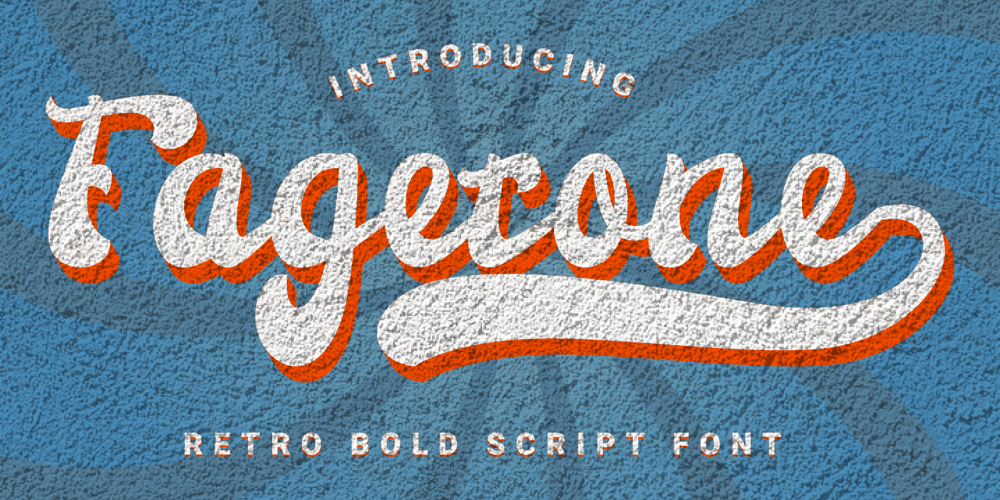
Fagetone Font Family was designed by Prio Nurokhim Aji and published by Prioritype. Fagetone contains 1 styles and family package options. Dating back to the 60s 70s, this retro script font comes in bold bold and thin, perfect for your projects and supports multilingualism and other character additions. Can be applied to various print and digital media such as food packaging, clothing stores, accessories, clothing, creative goods, antique workshops, sports, entertainment and even logos. For reference, see preview.Features:-Uppercase-Lowercase-Numeral-Punctuation-Ligature-Multilingual